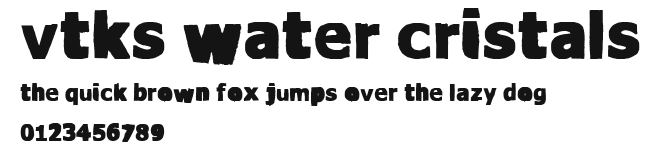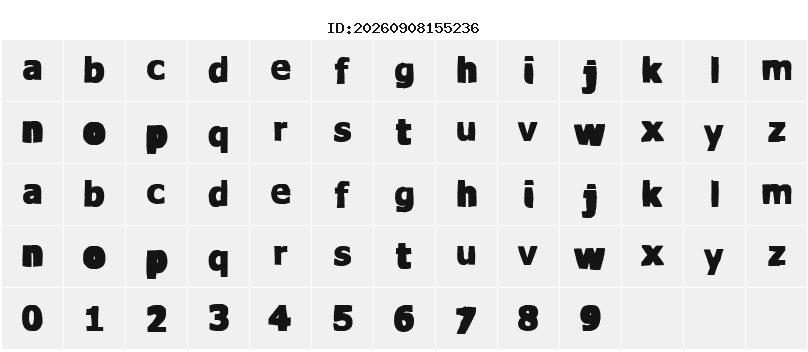
• Font Name: vtks Water cristals
• Full Font Name: vtks Water cristals
About vtks Water cristals.ttf
vtks Water cristals.ttf is a modern, elegant sans-serif font designed for ultimate readability and visual harmony. Perfect for branding, headlines, web design, and print materials.